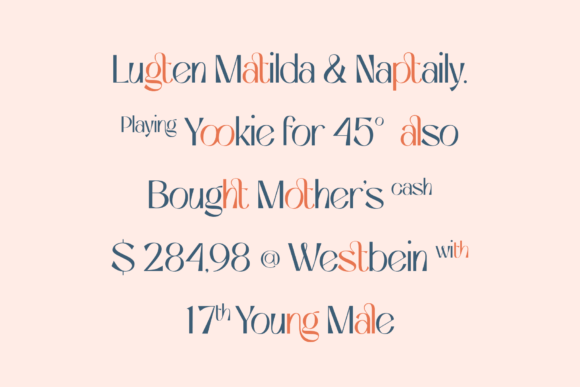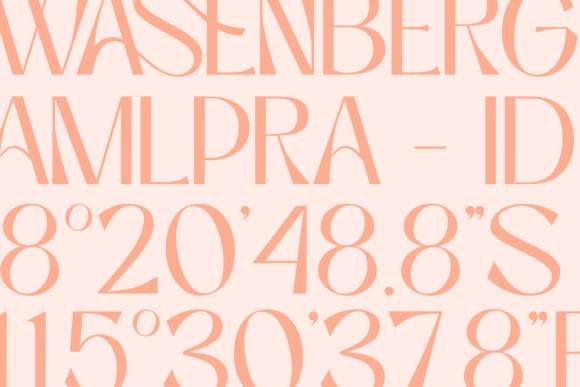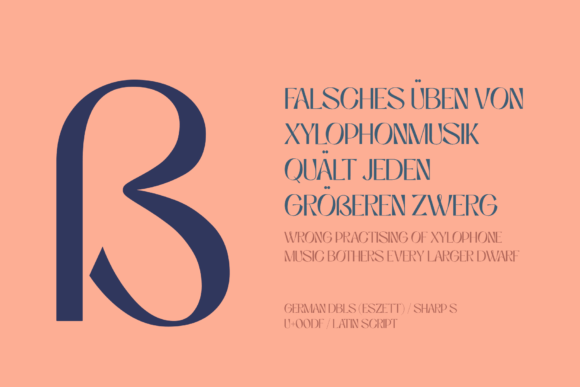
Introduction to Niasec Lux Font
Niasec Lux is an experiment with organic-looking curves at certain angles in the typeface.
The original form is made as to the curve’s spindle but does not force it to happen to the form of letters that are not compliant This is also done as a contrast value on each side.